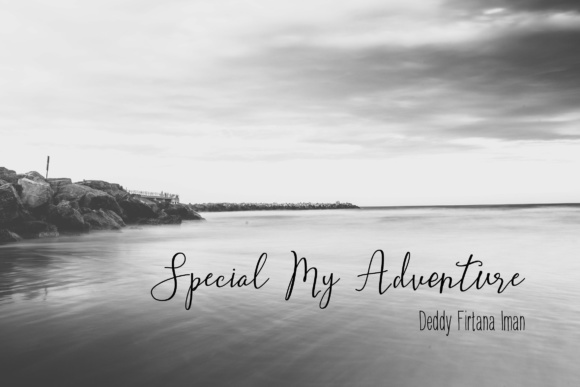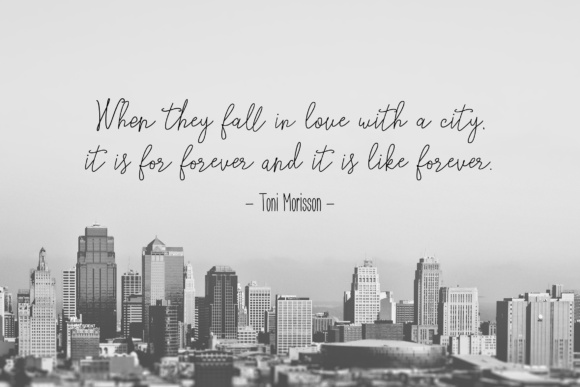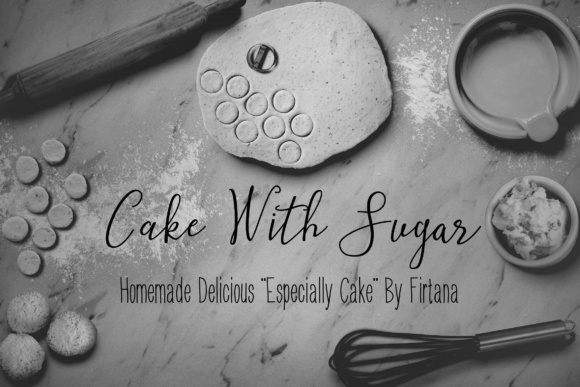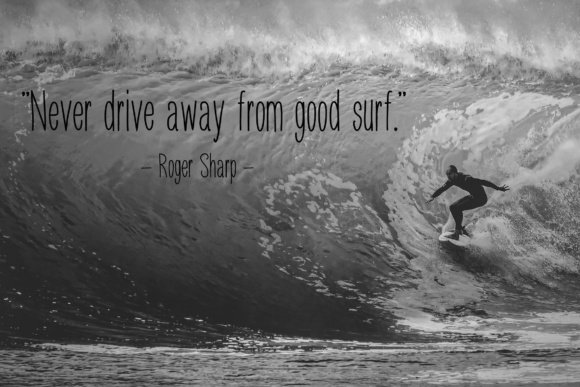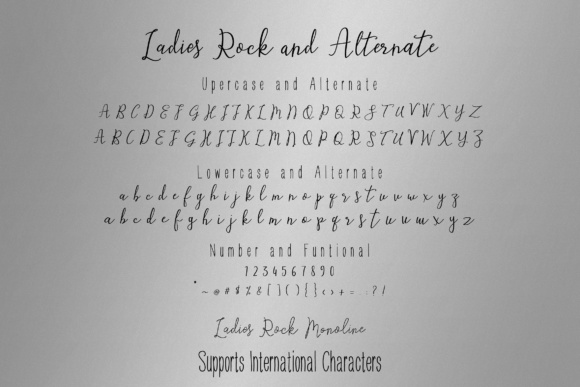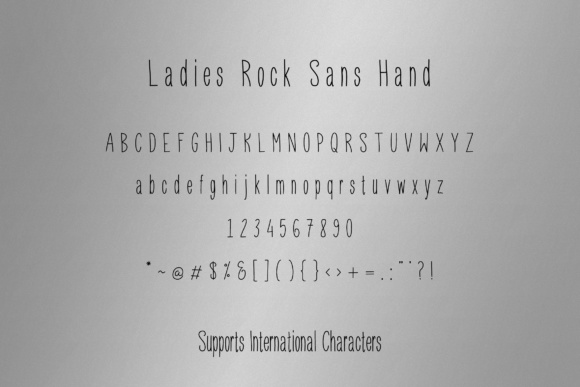
Introduction to Ladies Rock Duo Font
The Ladies Rock is a striking yet elegant typeface.
It comes in three styles which give you the opportunity to create an unique design every time you use it .
Key Features of Ladies Rock Duo Font